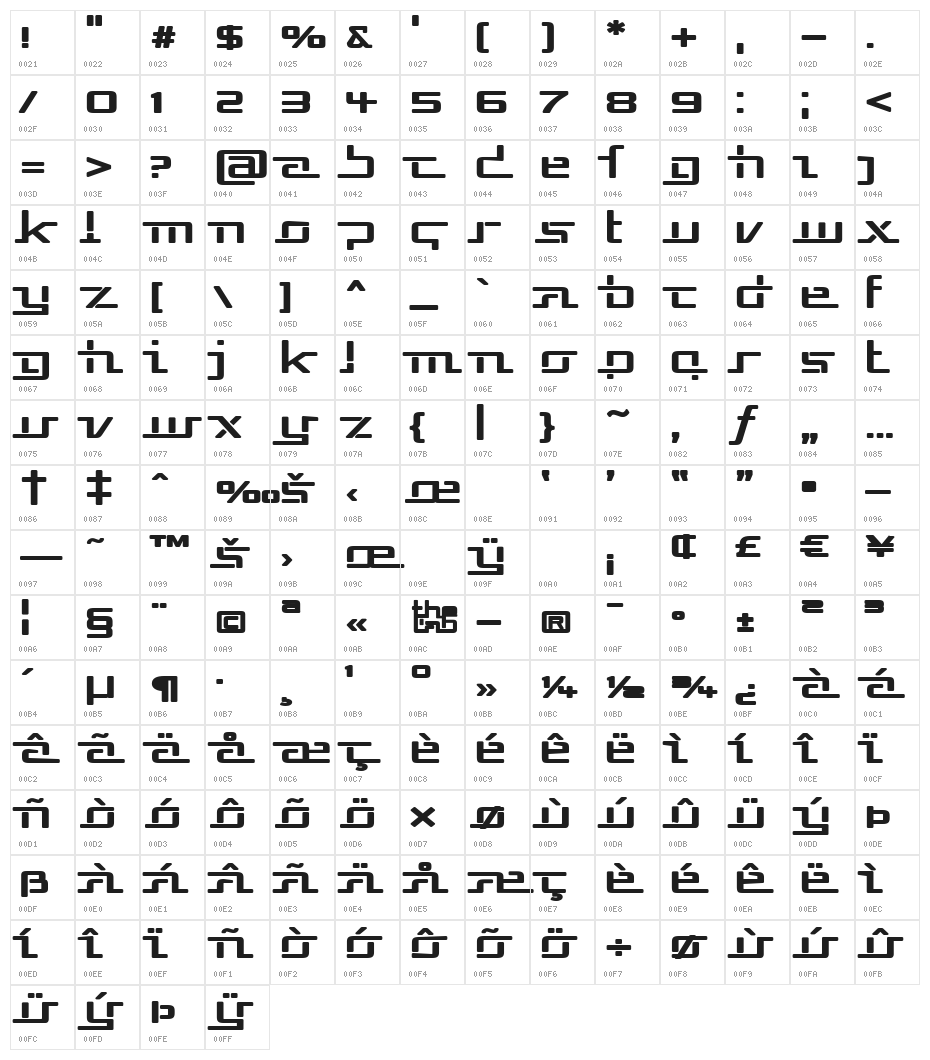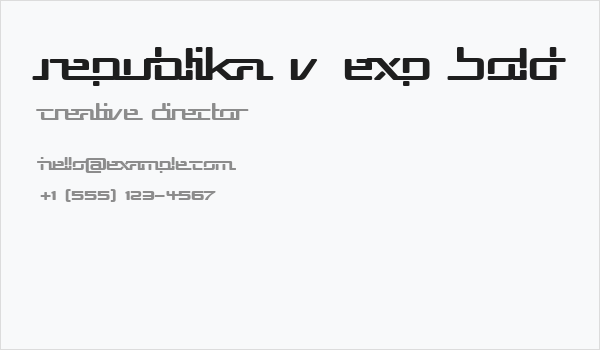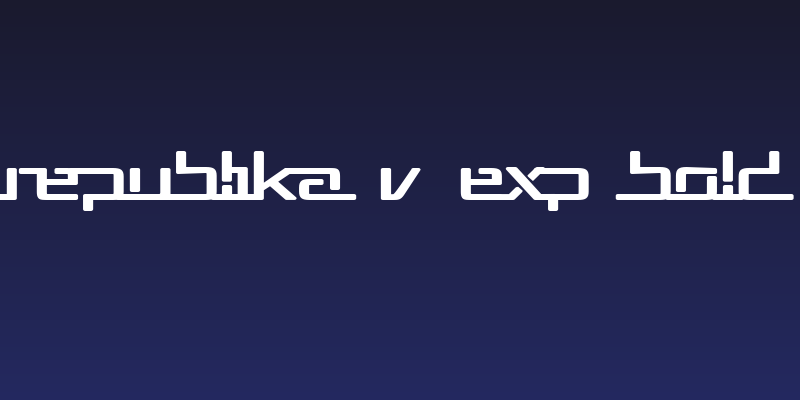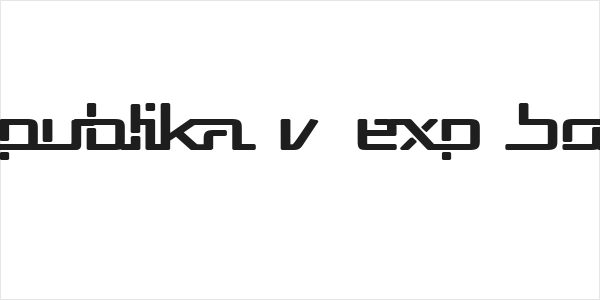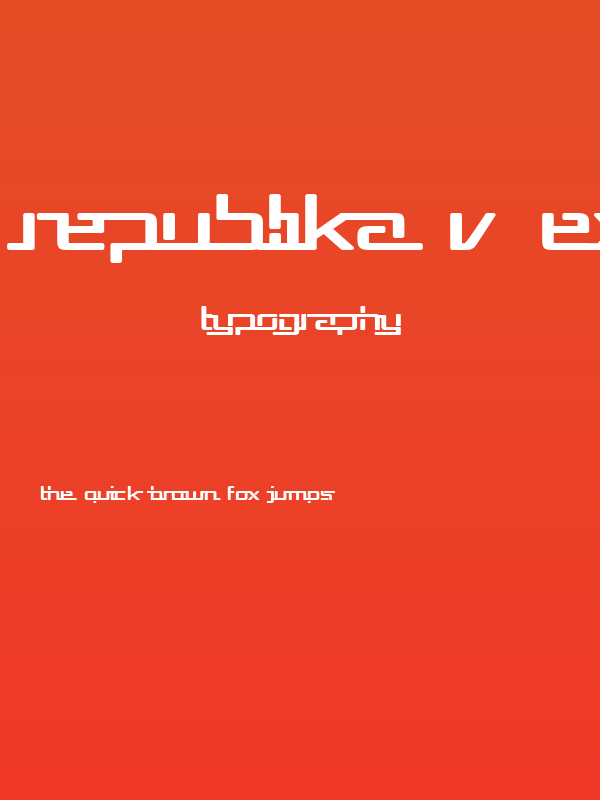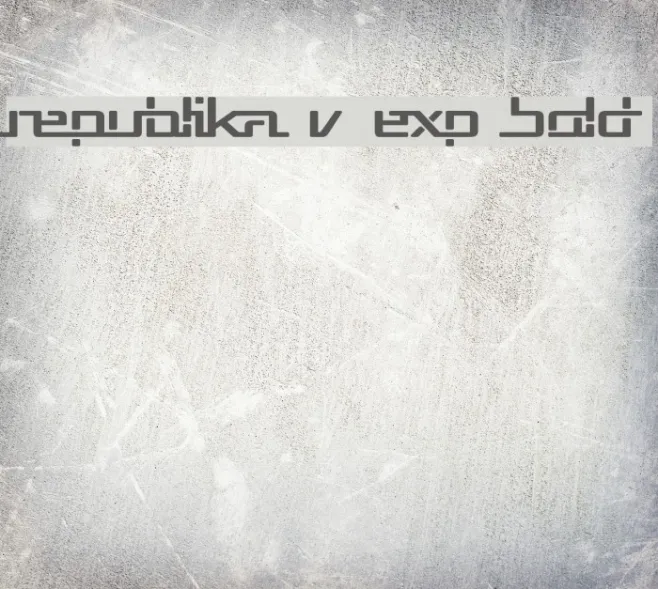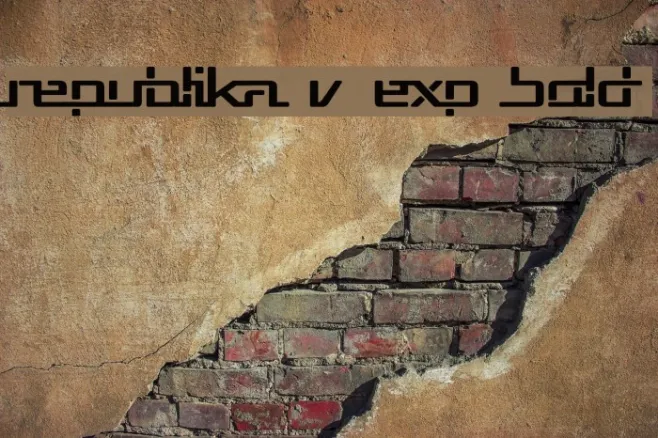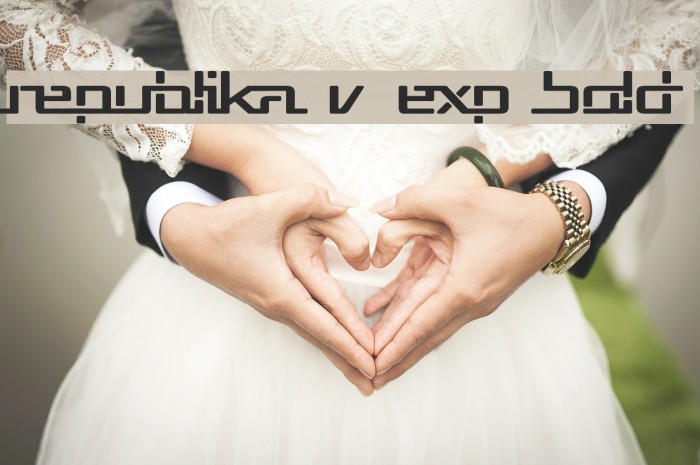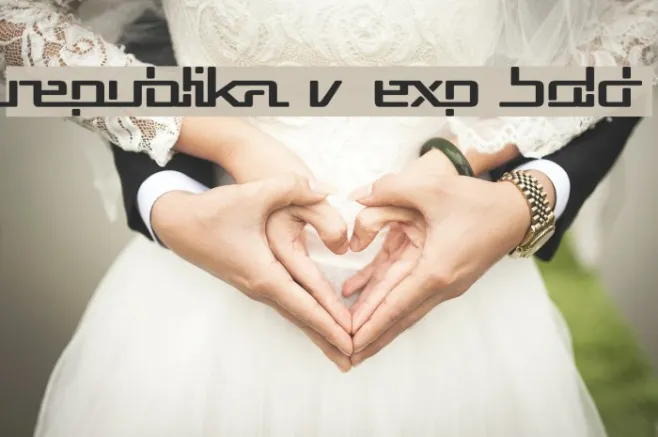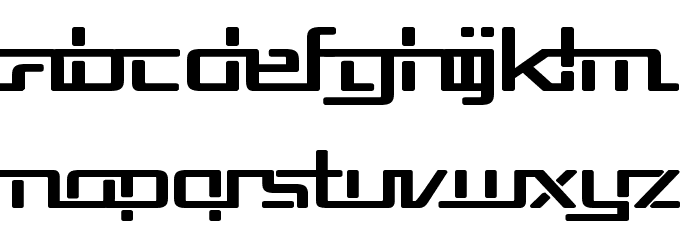
Republika V Exp Bold Font
Republika V Exp Bold Description
This font exhibits a futuristic and geometric design, characterized by its bold and expansive letterforms. The characters are constructed with a consistent stroke width, giving it a uniform appearance. The design incorporates sharp angles and straight lines, creating a modern and technical feel. The uppercase and lowercase letters maintain a cohesive style, with unique features such as extended horizontal strokes and squared-off edges. The numerals and special characters follow the same design principles, ensuring a harmonious look across all glyphs. This font's distinct style makes it suitable for projects that require a contemporary and innovative aesthetic.
| Proposed Projects | Ideal for technology branding, sci-fi themed projects, modern posters, and digital interfaces. |